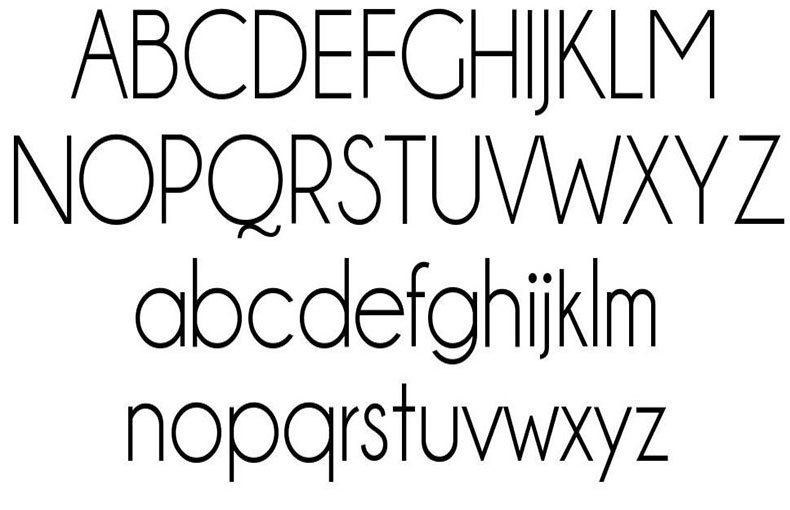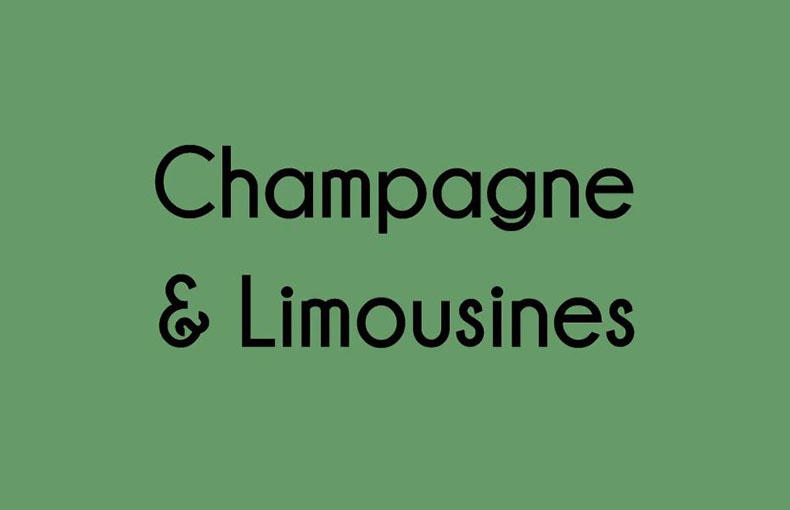
Champagne & Limousines Font is a display sans serif typeface that has a stylish and elegant look. It is designed by Lauren Thompson and is available for free download and personal use.
Its clean and modern design makes it perfectly well-suited for a variety of projects including invitations, weddings, branding, marketing materials, and special events.
The font letter is made with a well-proportioned that also has a smooth, flowing look. Because it is highly readable, you can also try it out for large and small text sizes.
Champagne & Limousines come in four different weights including regular, bold, bold italic, and italic. This font includes 847 glyphs and 1126 binary stored kerning pairs. Moreover, it also supports 103 global languages.
This simple and clean typeface is perfect for use in themes for mobile application design, designing software, website design, template design, e-commerce store design purposes, banners, headers, titles, social media post design, and for the purposes of fancy name design.
This font supports 103 languages.
Champagne & Limousines Font is a free sans-serif font designed by Lauren Thompson. It is a stylish and elegant font that is perfect for a variety of projects, including invitations, weddings, and special events. The font is also well-suited for branding and marketing materials.